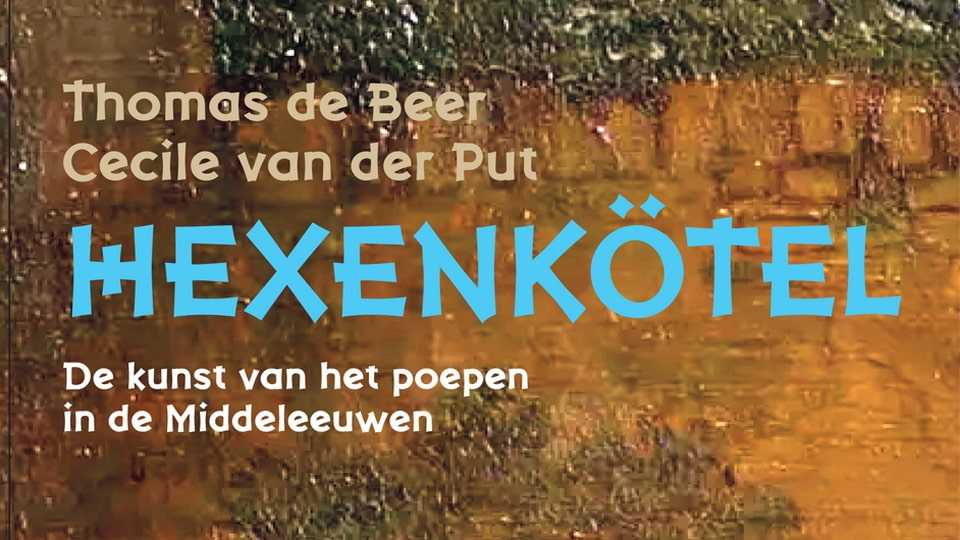
Download Hexenkötel font, a chunky and a bit awkward and sloppy display typeface. Hexenkötel will look fine on medieval, dark and fantasy themed games, book covers or film posters.